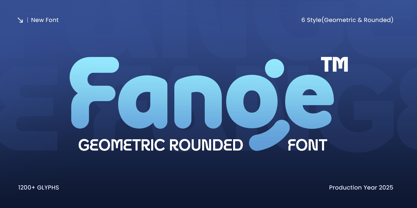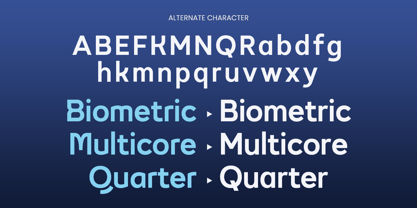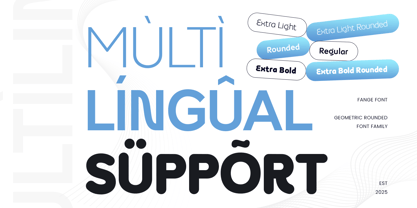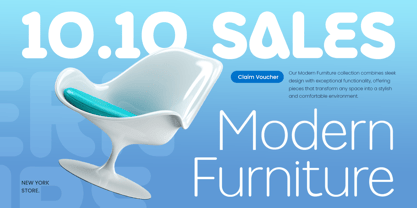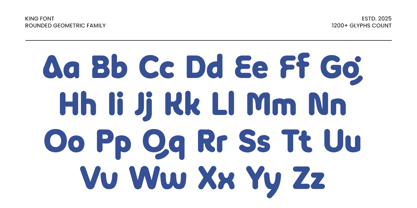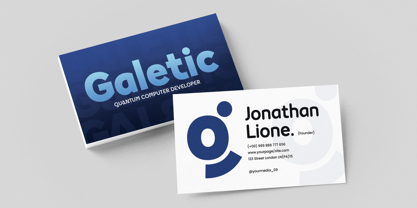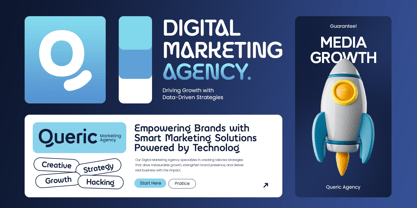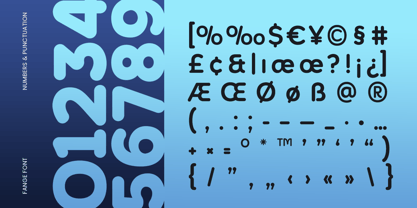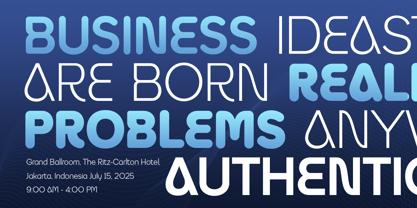
FANGE is a geometric rounded font crafted for designers seeking a clean, modern, and approachable aesthetic. With its soft edges, smooth geometry, and balanced proportions, this typeface is ideal for branding, packaging, digital interfaces, and editorial layouts that require clarity with a friendly visual tone.
Designed for versatility, FANGE works beautifully in both large display titles and smaller body text. Its rounded construction gives every composition a warm and inviting character, making it perfect for lifestyle brands, tech startups, creative studios, and modern UI/UX design.
Whether used for logos, app interfaces, social media graphics, or minimal packaging, FANGE delivers precision, softness, and contemporary elegance across all media.
Clean geometric sans serif with smooth rounded edges
Perfect for branding, logos, packaging, and user interfaces
Modern and friendly appearance ideal for a wide range of industries
Excellent readability for print and digital design
Uppercase, lowercase, numerals, and punctuation included
OpenType features for enhanced typographic flexibility
Build soft, modern, and professional branding with FANGE – the ultimate geometric rounded font for clean and friendly design.